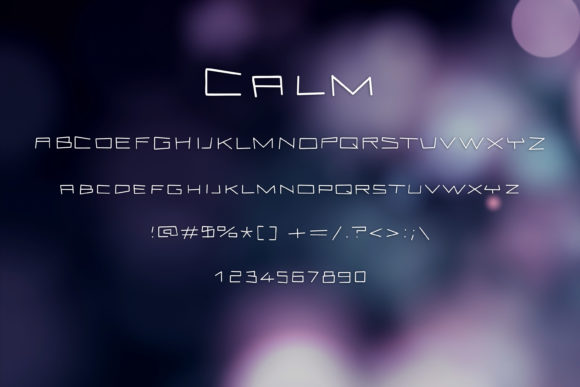
Introducing Calm Font: Elevate Your Designs with Elegance and Edge
In the world of typography, fonts play a crucial role in conveying messages, expressing emotions, and creating lasting impressions. For designers and crafters, finding the perfect font that strikes a balance between elegance, modernity, and personality can be a daunting task. However, if you’re looking for a font that embodies confidence, legibility, and a subtle personal touch, look no further than Calm Font.
What is Calm Font?
Calm is an elegant and slightly edgy display font that boasts an incredibly modern style. Designed to make a statement, Calm Font is perfect for projects that require a touch of sophistication and a dash of boldness. Its unique blend of refinement and subtle edge makes it an excellent choice for designers seeking to add a personal touch to their work.
Key Features of Calm Font
• Elegant and Modern Style: Calm Font features a sleek and contemporary design that instantly elevates any project. Its clean lines, precise curves, and balanced proportions make it a versatile choice for various applications.
• Confidence and Legibility: With Calm Font, you can ensure that your message is delivered with confidence and clarity. Its highly legible design makes it perfect for use in headings, titles, and short paragraphs.
• Subtle Personal Touch: What sets Calm Font apart is its subtle yet distinctive edge. This unique characteristic adds a personal touch to your designs, making them more relatable and engaging.
Use Cases for Calm Font
Calm Font’s versatility makes it suitable for a wide range of projects, including:
• Branding and Logos: Create a lasting impression with a bold and elegant logo that showcases your brand’s personality.
• Advertising and Marketing: Use Calm Font to craft attention-grabbing headlines and titles that capture your audience’s attention.
• Packaging and Product Design: Add a touch of sophistication to your product packaging with Calm Font’s modern and refined style.
• Web Design and Development: Enhance your website’s typography with Calm Font, ensuring a consistent and professional look across all devices.
Calm Font offers numerous benefits for designers and crafters, including:
• Consistency: Ensure consistency across your projects with a font that is highly legible and visually appealing.
• Creativity Boost: Calm Font’s unique style and characteristics can inspire creativity and help you explore new design possibilities.
In conclusion, Calm Font is an exceptional display font that offers a perfect blend of elegance, modernity, and personality. Its confidence, legibility, and subtle personal touch make it an excellent choice for designers and crafters seeking to elevate their designs. Whether you’re working on branding, advertising, packaging, or web design, Calm Font is sure to deliver impressive results. So why wait? Discover the power of Calm Font and take your designs to the next level.